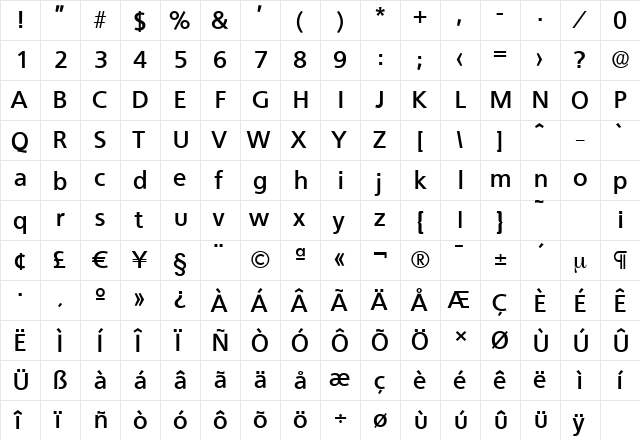
QuebecSerial Bold
Design Context for QuebecSerial Typeface
QuebecSerial offers clean, dependable letterforms without strong stylistic allegiance, making it a practical choice for designers who need flexibility. Its bold stroke weight gives it real presence on the page.
Pro Tip: Pair QuebecSerial with a font of contrasting weight or personality to build a more expressive typographic hierarchy.